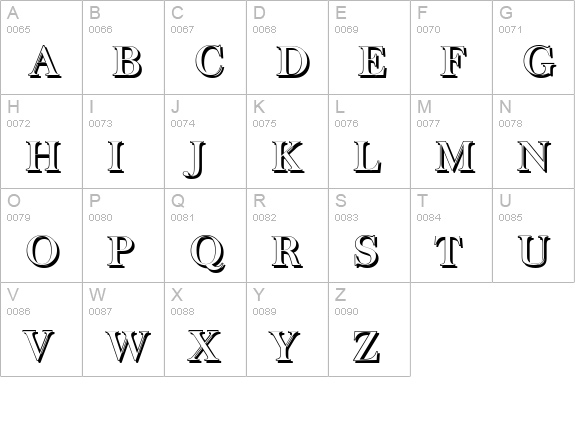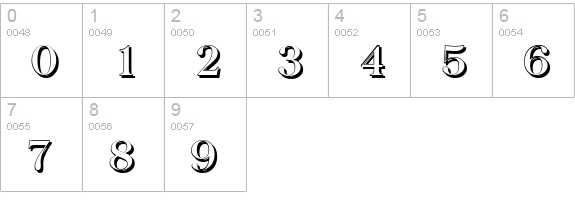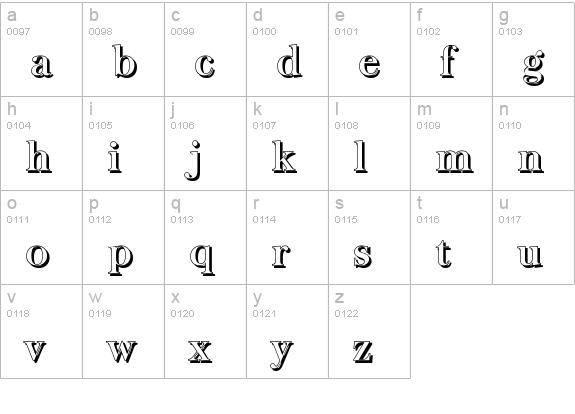
BaskervilleShadow-Medium-Regular Font Details
BaskervilleShadow-Medium-Regular is a balanced, medium-weight variant in the BaskervilleShadow typeface family \xE2\x80\x94 well suited to sub-headlines, navigation, and balanced editorial work.
BaskervilleShadow-Medium-Regular is a classic and elegant font that exudes sophistication and style. Its medium weight strikes the perfect balance between boldness and readability, making it ideal for a wide range of design projects. The shadow effect adds depth and dimension to the text, creating a visually appealing look. Best of all, this font is available for free download at FontsMarket.com. Whether you're working on a print design, web project, or branding materials, BaskervilleShadow-Medium-Regular is a versatile choice that will elevate your work to the next level. Don't miss out on the opportunity to enhance your designs with this beautiful and timeless font that is just a click away.